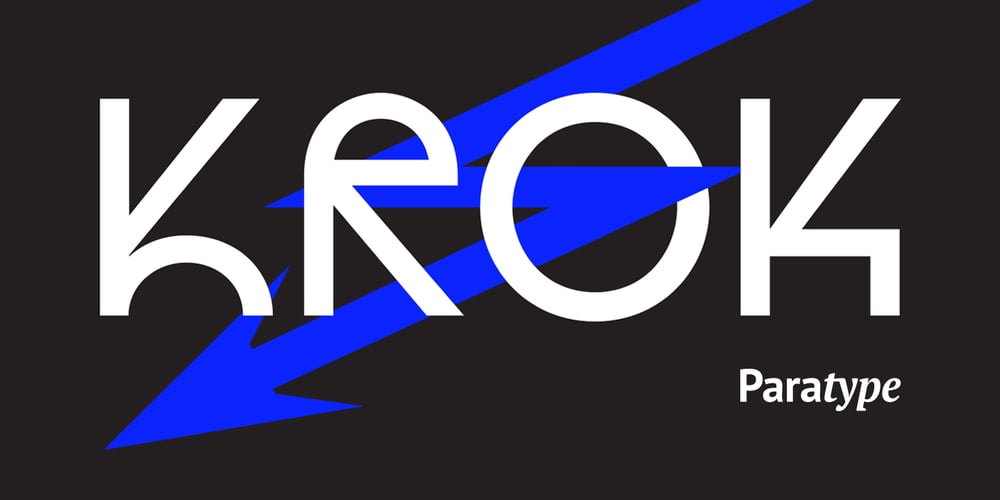
Krok
Krok font
Krok Font Family was designed by Zhanar Bereketova and published by ParaType. Krok contains 1 styles and family package options. Krok is an experimental geometric sans serif designed by Zhanar Bereketova. It’s suitable for posters, packaging, brand elements and short memorable texts. Each character of this font adds a visual accent to the message. There are many alternative forms, designed in two stylistic sets and one contextual set that allow you to create a different mood of the text — from electronic folk to science fiction. The font was released by ParaType in 2018.